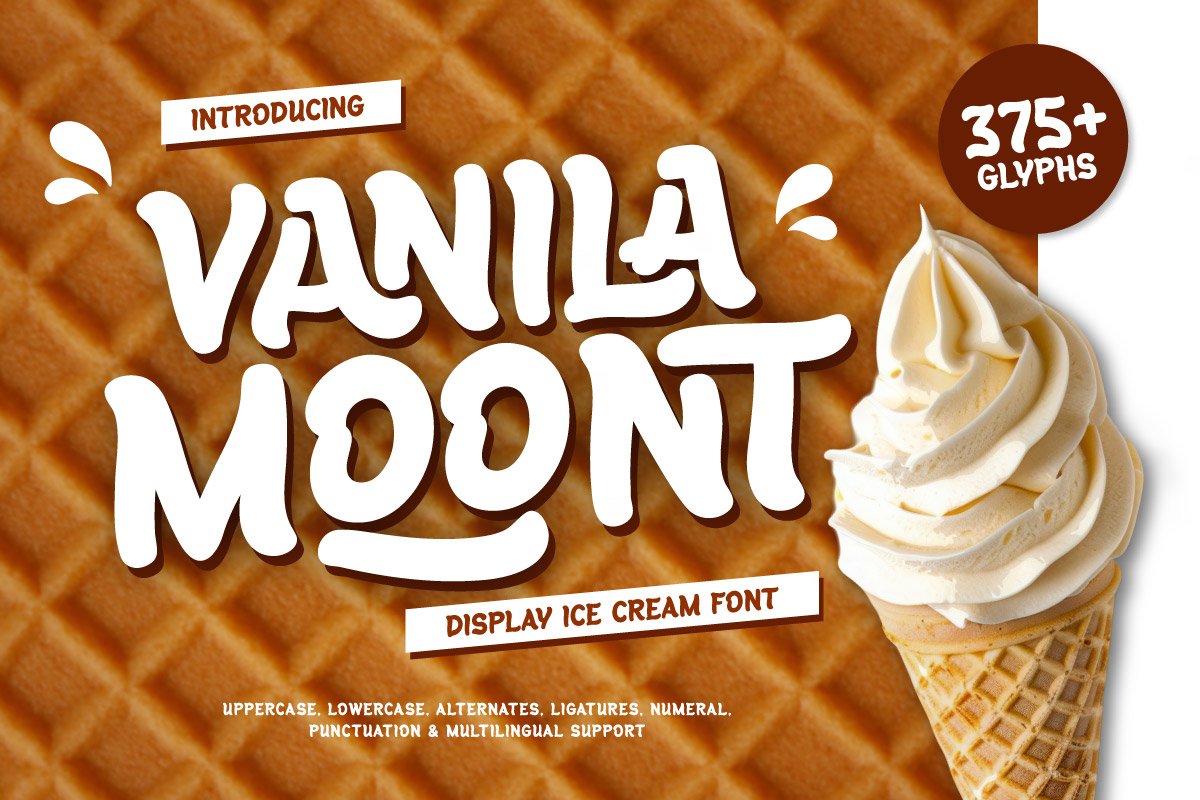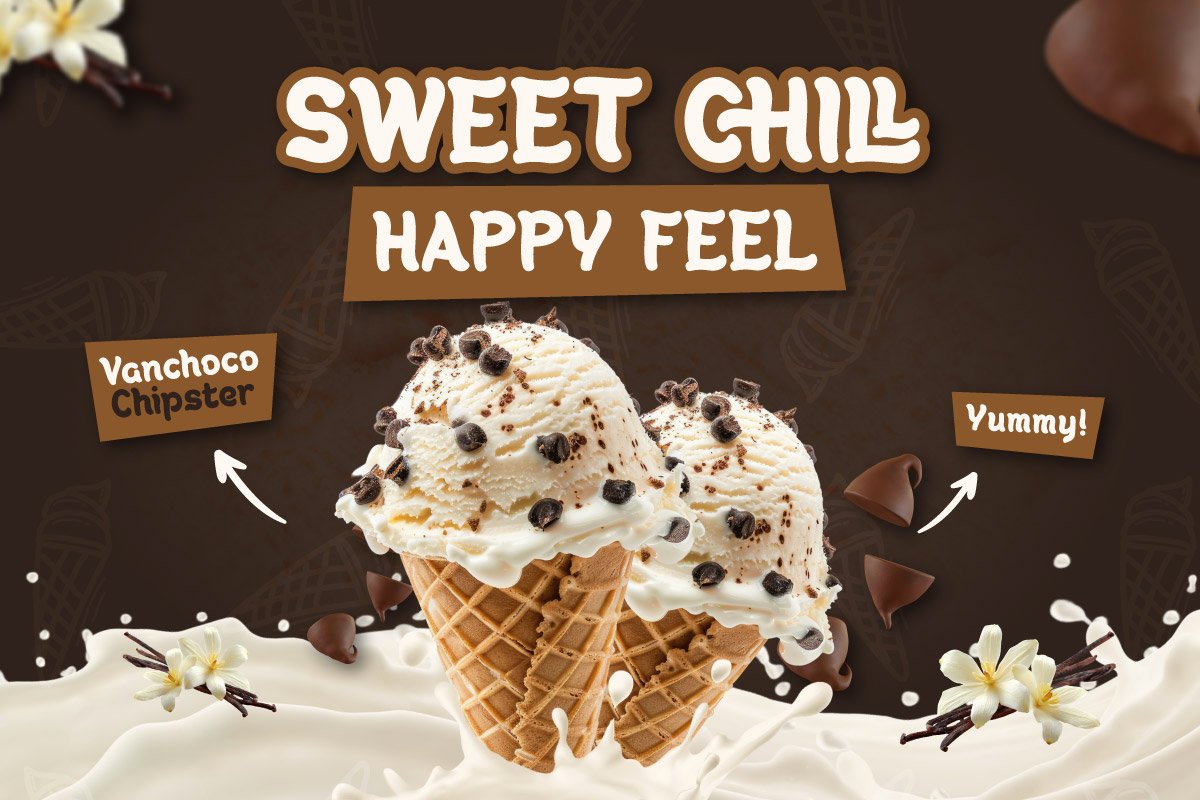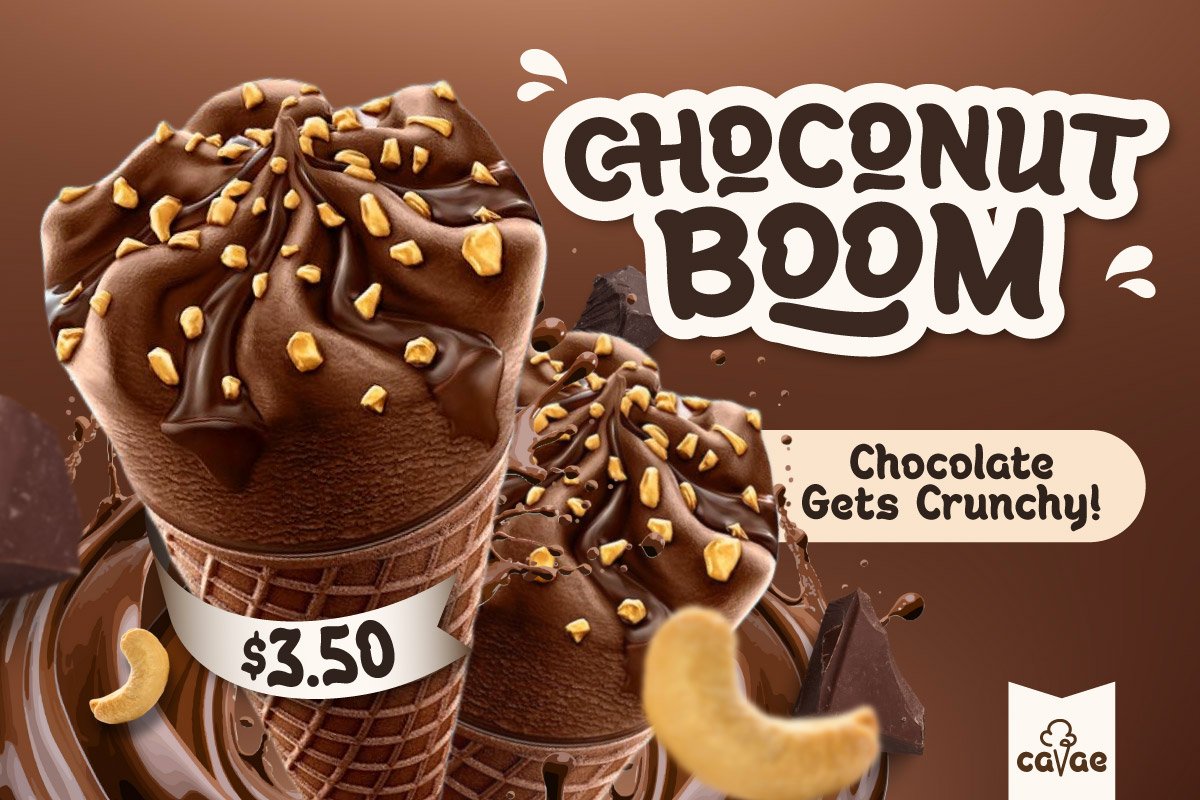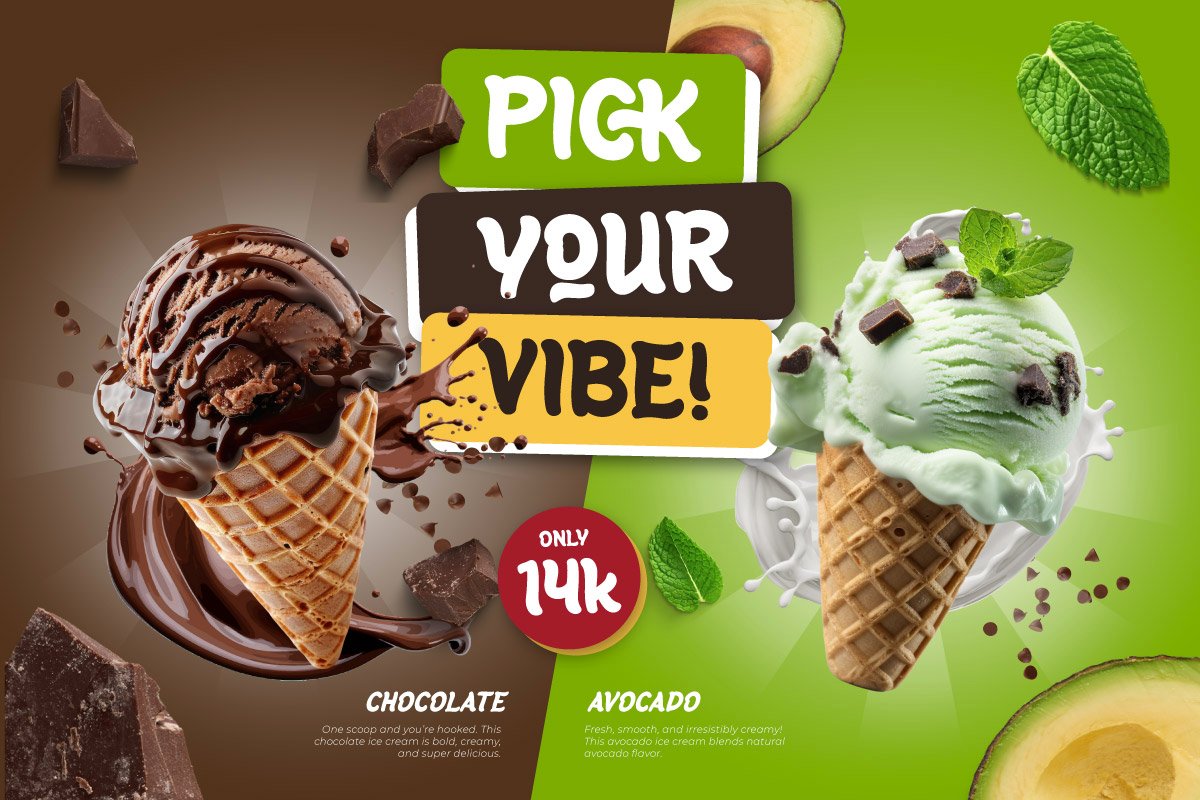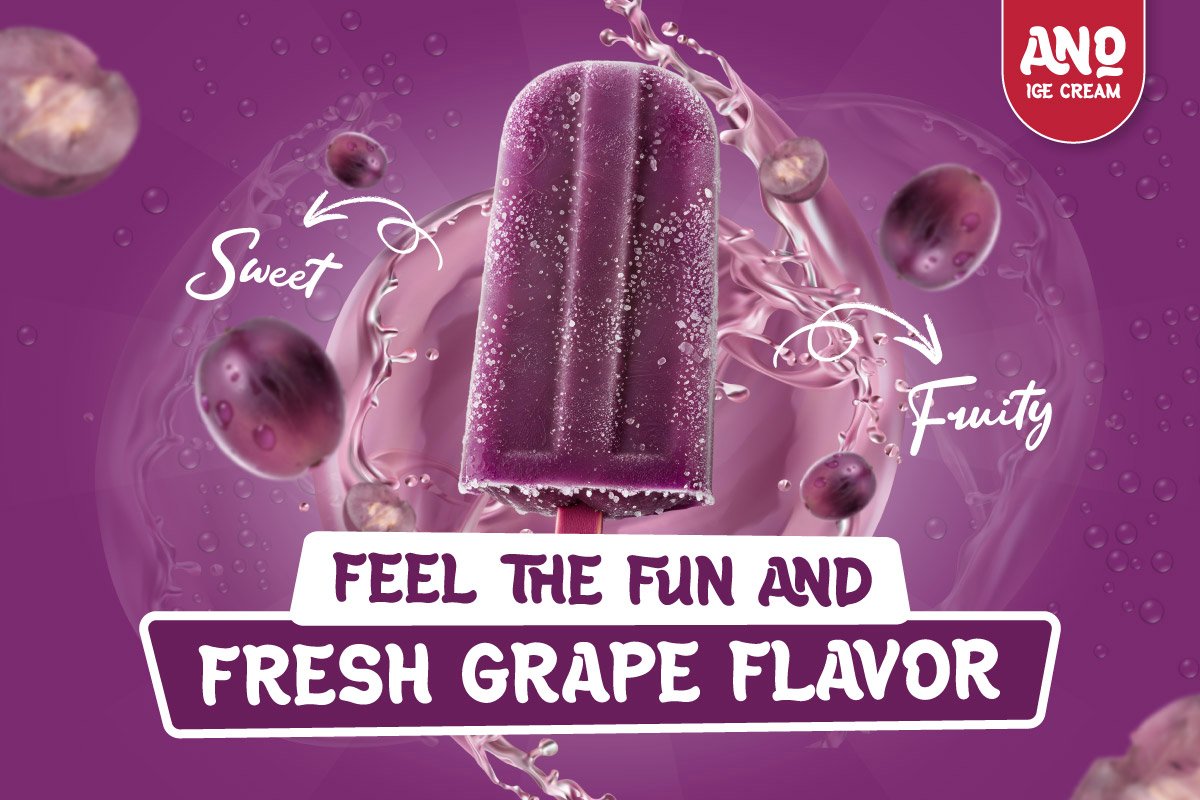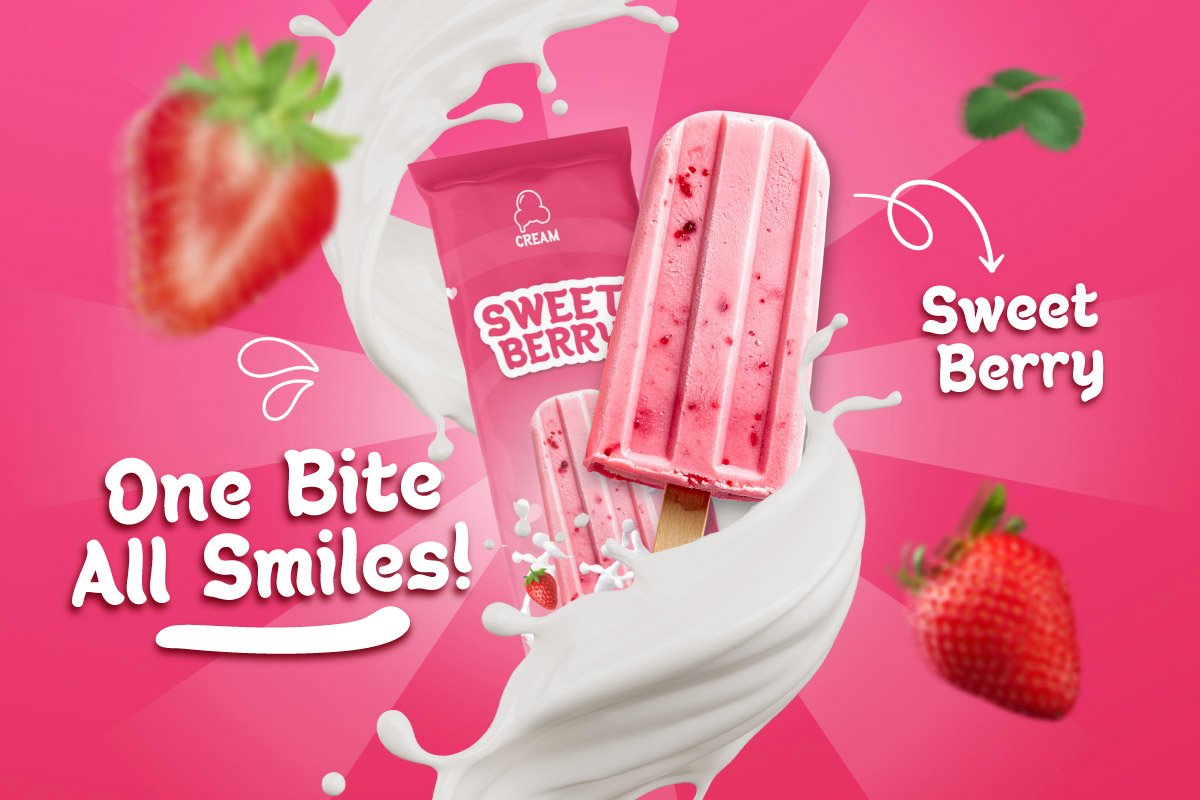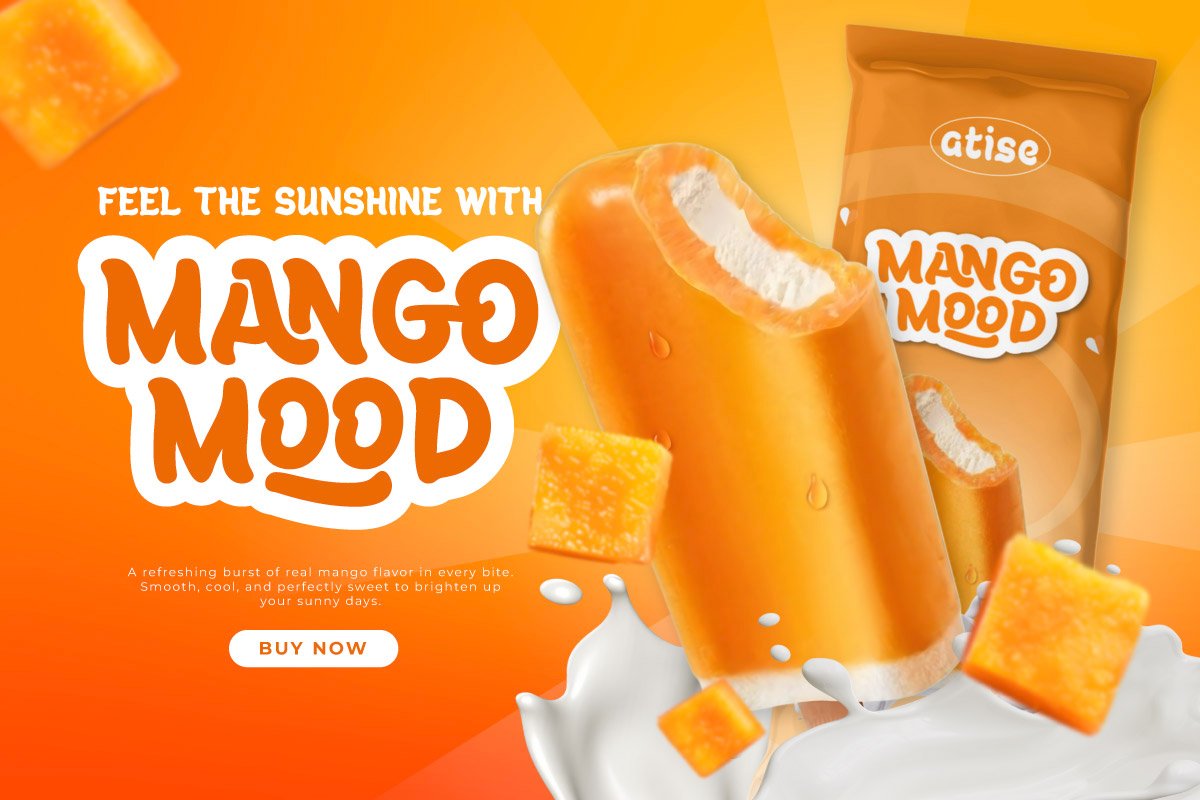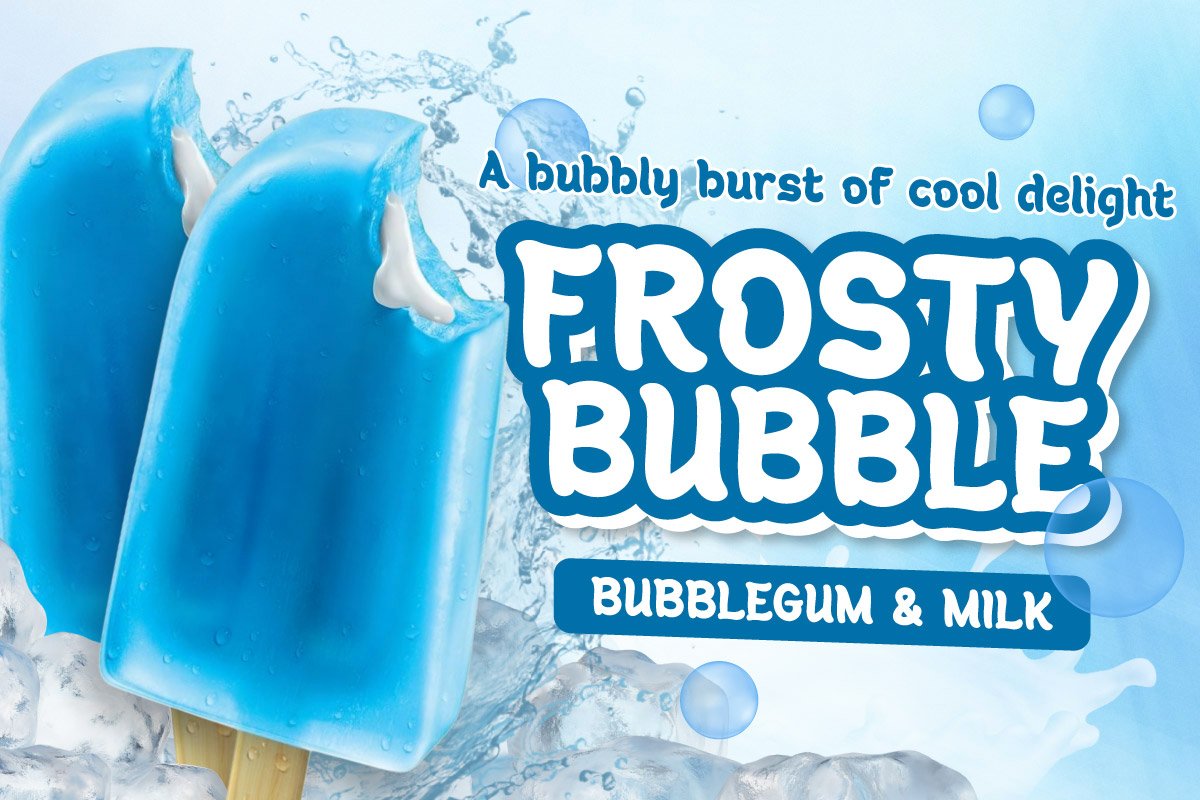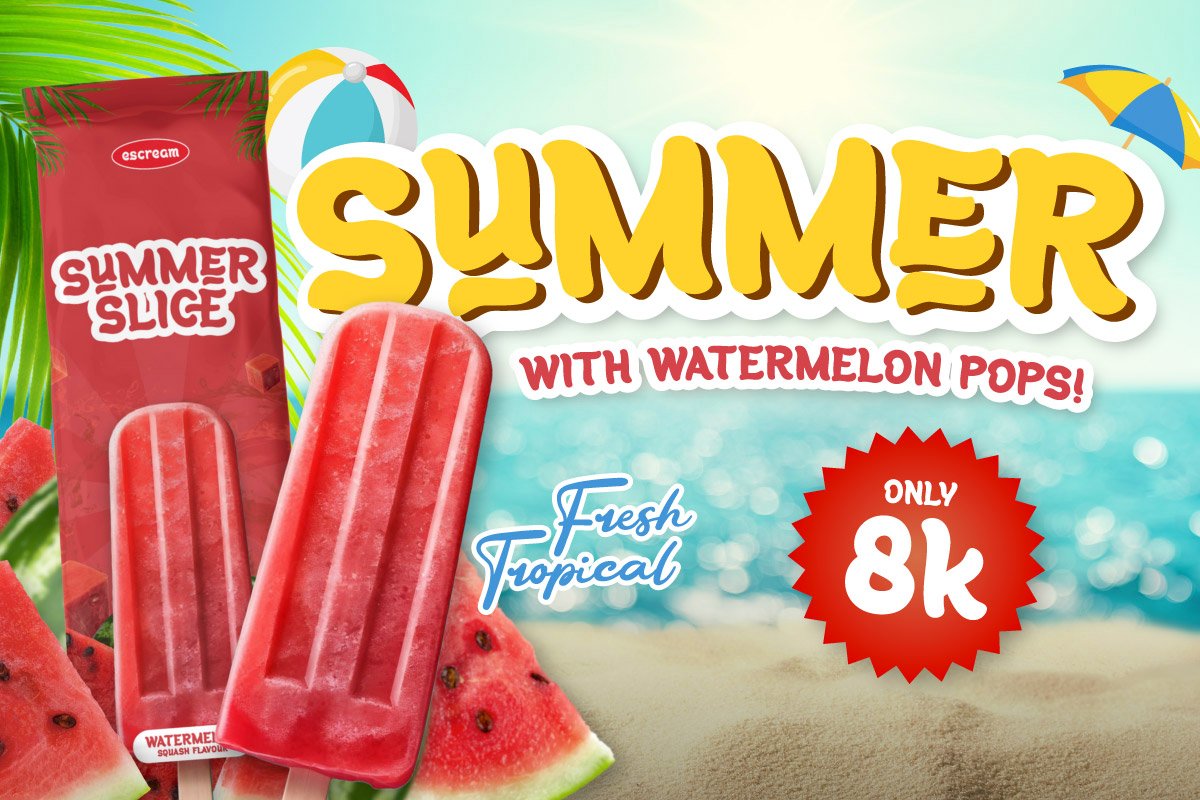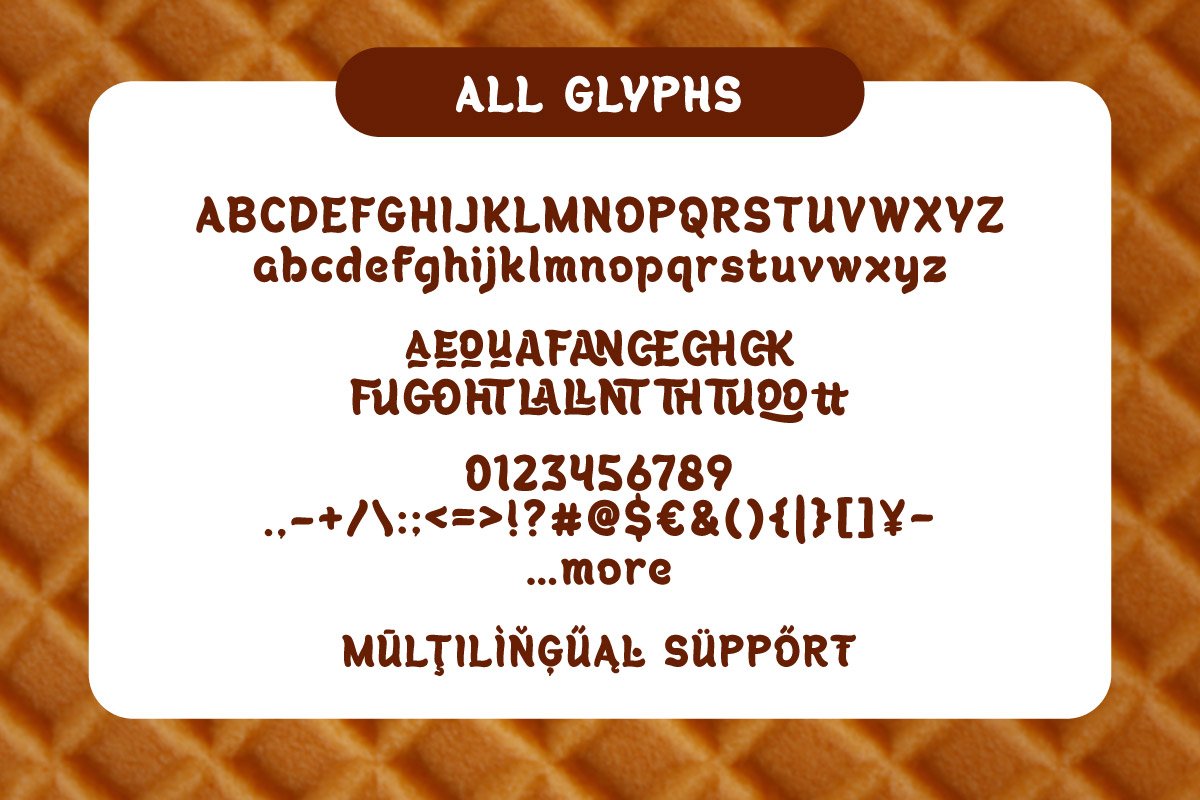
Vanila Moont – Ice Cream Display Font
Vanila Moont – Ice Cream Display Font brings a delightful blend of sweetness and playfulness to your designs. Inspired by soft ice cream shapes and creamy textures, this font captures the joyful feeling of summer treats and cheerful moments. Its rounded edges and smooth flow make every word feel soft, friendly, and full of life.
Packed with alternates, ligatures, numerals, and multilingual support, Vanila Moont offers both charm and versatility. Whether you’re designing packaging, product labels, posters, or playful branding, this font easily adds a sense of freshness and warmth to your compositions. It’s designed to make any layout stand out while keeping a smooth and approachable personality.
Every letter of Vanila Moont feels hand-crafted with a touch of happiness—perfect for projects that want to spread positivity and light-hearted energy through type. It’s more than a font; it’s a scoop of fun for your design work.
Multilingual Support, including 85 languages: